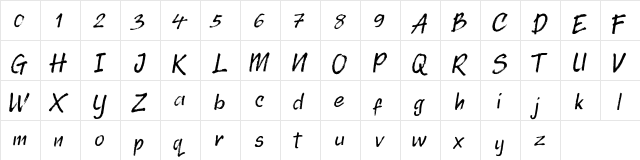
| Style | Randy Bistroke |
| Foundry | Fenny Wiryani |
| Designer | Fenny Wiryani |
Design Context for Randy Bistroke Typeface
Randy Bistroke is a composed and adaptable typeface that performs quietly and consistently across a wide range of design contexts.